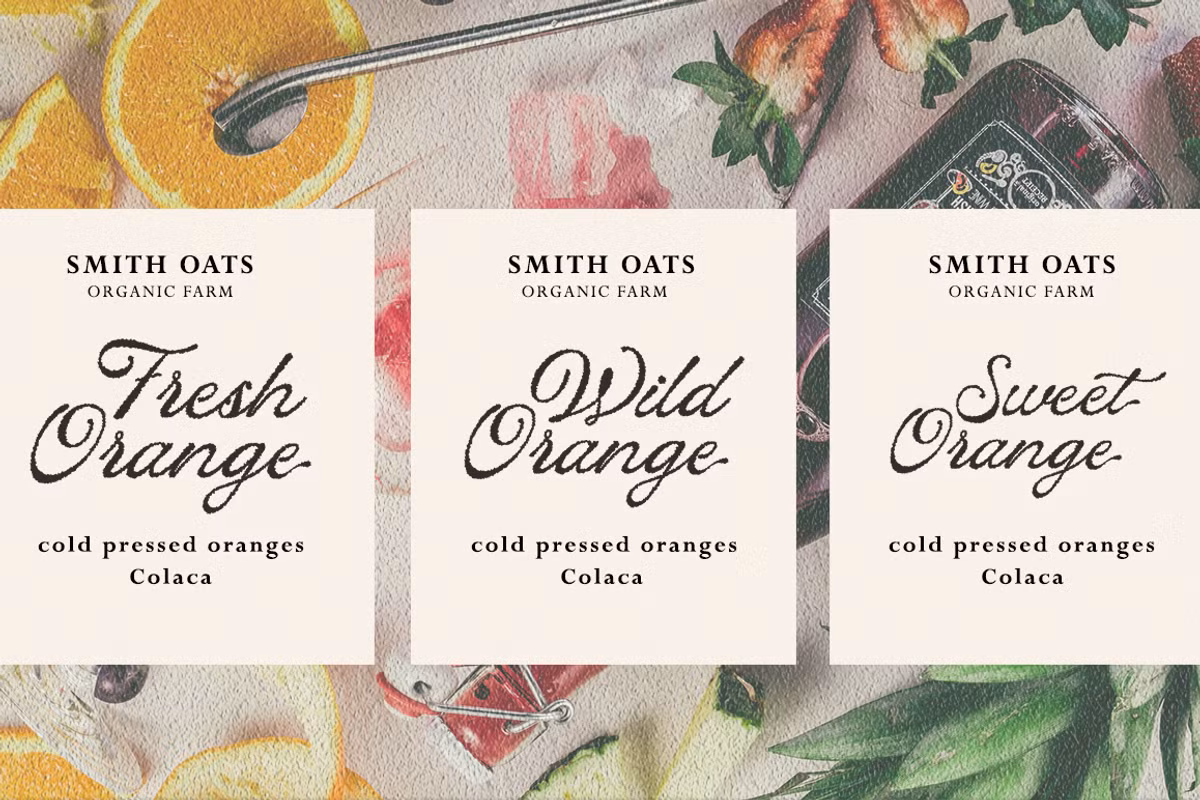
Juliette Classic: Elegant Script Font with Tropical Vibes for Design
The Juliette Classic font is really something special – it’s elegant, yet it has this tropical vibe that sets it apart. What makes it so unique is the attention to detail that’s gone into crafting it, with inspiration drawn from the calmness of the beach, the sound of the waves, and the feeling of being on a never-ending vacation. It’s luxurious, but at the same time, it’s also relaxed and charming, making it perfect for designers who want to add a bit of natural sophistication to their work.
Whether you’re looking to create something that feels high-end or just something that captures the essence of a seaside escape, Juliette Classic is a great choice. Its beauty is in its subtlety, making it a versatile font that can elevate any project with its understated elegance.
The Juliette Classic has a really special look that’s both fancy and fun. Its curves are smooth and the lines flow nicely, which makes it stand out. This script font isn’t just pretty, it’s also about a way of life that feels warm and relaxing, like a vacation in a tropical paradise.
It’s the kind of thing that can make you feel like you’re in a beautiful place, even when you’re not. The way it looks is just so nice and calming, it’s perfect for when you want to unwind and feel good. The Juliette Classic is a great choice if you want something that’s both stylish and laid-back, it’s a really great combination.
What really stands out about Juliette Classic is how beautifully it flows, making it perfect for all sorts of design projects. You can use it for headings, quotes, or just to add some decorative touches – it’s sure to grab people’s attention.
Character Sets and Features
The Juliette Classic font comes equipped with a comprehensive set of features that enhance its versatility. It includes:
- Latin Basic A-Z and a-z
- Numbers and Symbols
- A stylistic collection that offers various alternatives
- Ligatures that provide seamless connections between characters
- PUA encoding for easy access to special characters
- Multilingual support, allowing for diverse language applications
These features make Juliette Classic an exceptional choice for projects requiring both visual appeal and functional flexibility. The availability of stylistic alternatives and ligatures means you can create unique typographic compositions that stand out in any design context.
Use Cases for Juliette Classic
The Juliette Classic font is incredibly versatile, making it suitable for a wide range of design projects. Here are some prominent use cases:
- Branding and Logos: When it comes to branding, Juliette Classic can elevate a company’s identity.
- Wedding Invitations: The romantic and graceful nature of Juliette Classic makes it an ideal choice for wedding invitations.
- Product Packaging: Using Juliette Classic can give packaging a high-end feel that grabs attention.
- Creative Projects: The font’s artistic flair makes it suitable for various creative ventures.
From posters to social media graphics, the font’s ability to capture attention while remaining elegant ensures that your designs resonate with audiences.
Juliette Classic is really beautiful by itself, but it can also be combined with other fonts to make your designs even better. Here are a few ideas for pairing it with other typefaces:
- Sans Serif Fonts: Pairing with a clean font like Montserrat adds a modern feel.
- Serif Fonts: Combining with a serif font like Playfair Display gives a classic vibe.
- Handwritten Fonts: Mixing with another handwritten font creates a playful yet cohesive design.